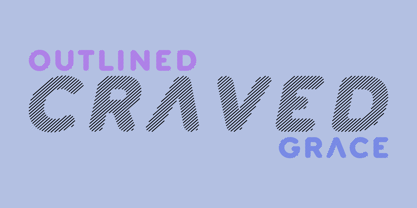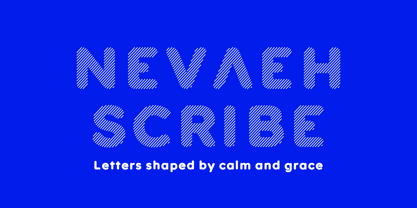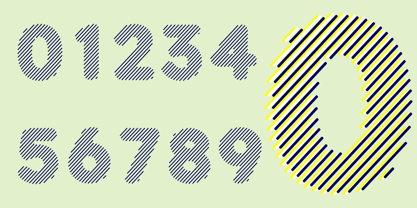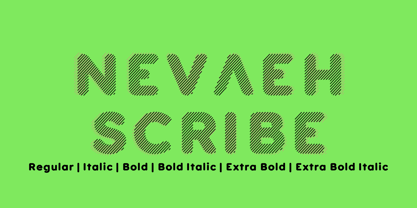
Nevaeh Scribe
by Kufic Studio
The Nevaeh Scribe Font Family was designed by Ahsan Ahmedzai and published by Kufic Studio. Nevaeh Scribe contains 6 styles and family package options. More about this family
Nevaeh Scribe is the free-spirited, hand-drawn sibling of the Nevaeh font family. With its playful scribble style, it captures the charm of quick notes and creative sketches while retaining Nevaeh’s graceful essence. The imperfect, organic strokes give it a personal, human touch—perfect for journals, artistic branding, social media graphics, or any design that calls for authenticity and warmth. As part of the Nevaeh collection, Nevaeh Scribe transforms casual marks into expressive storytelling.